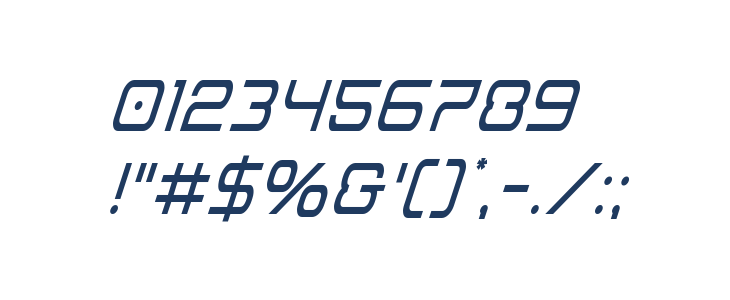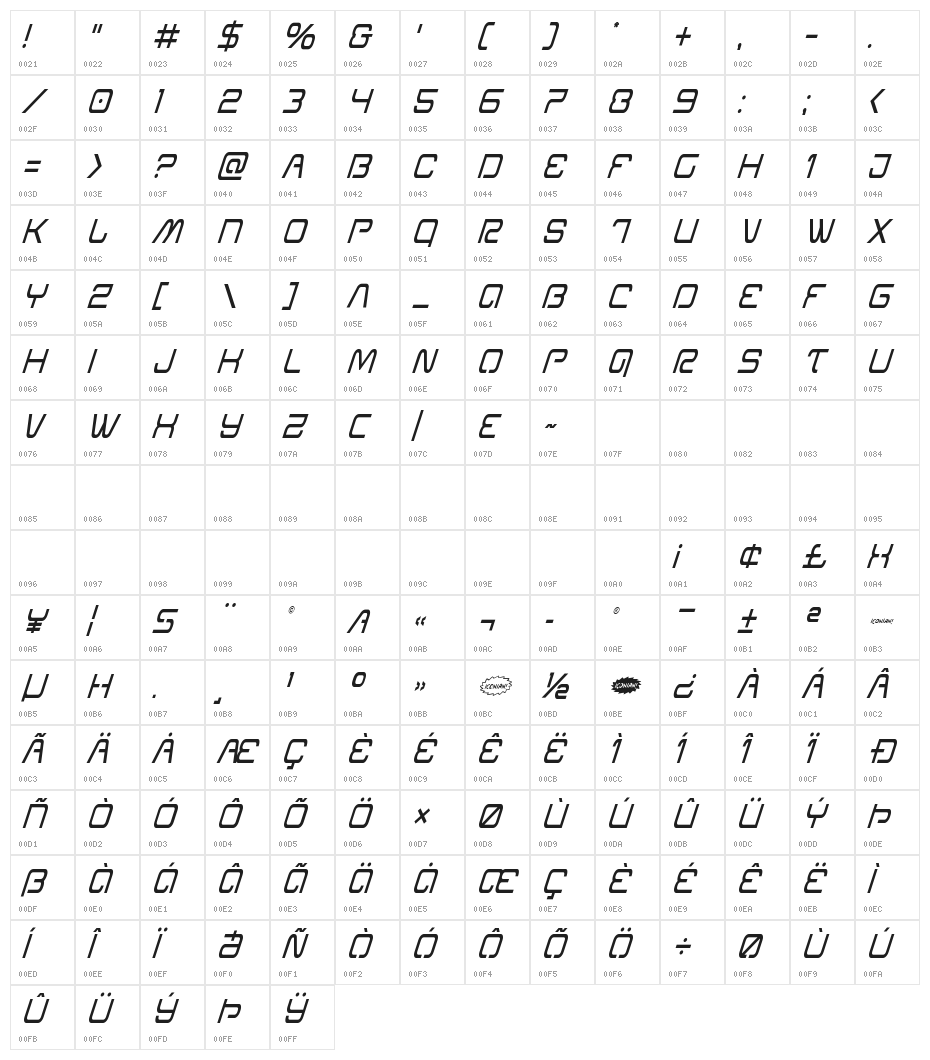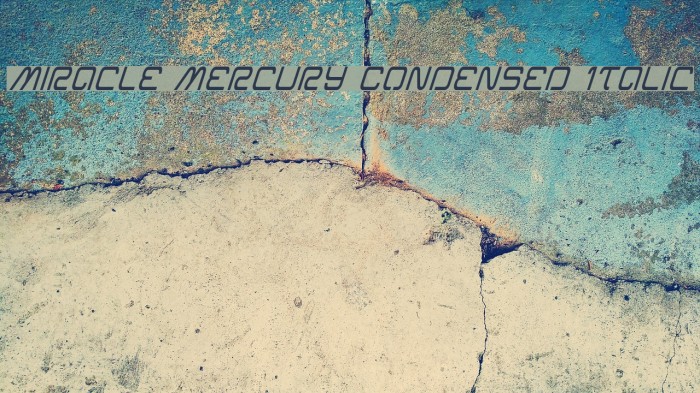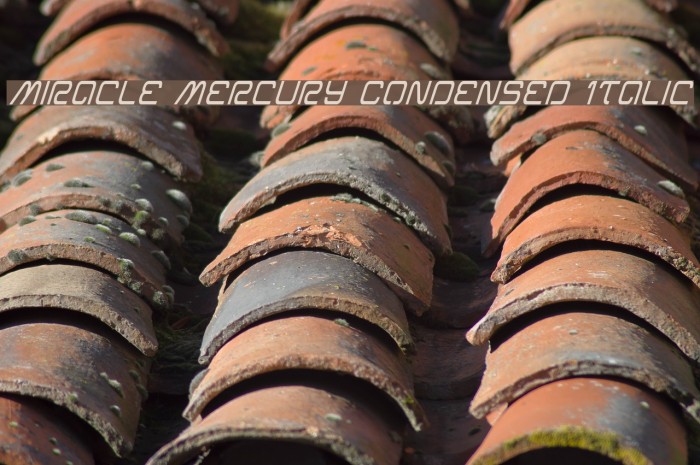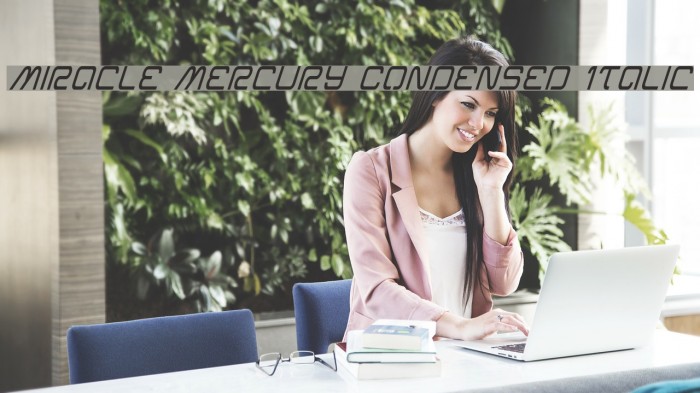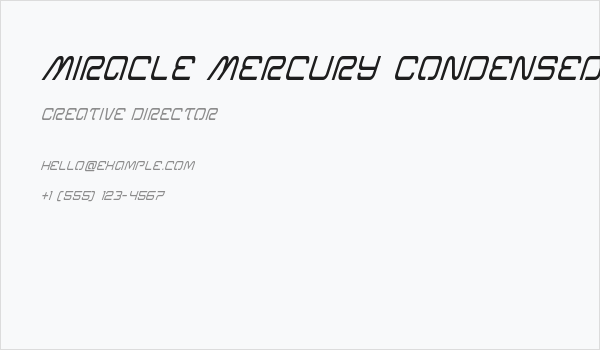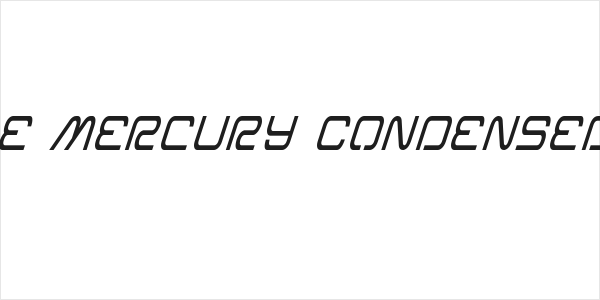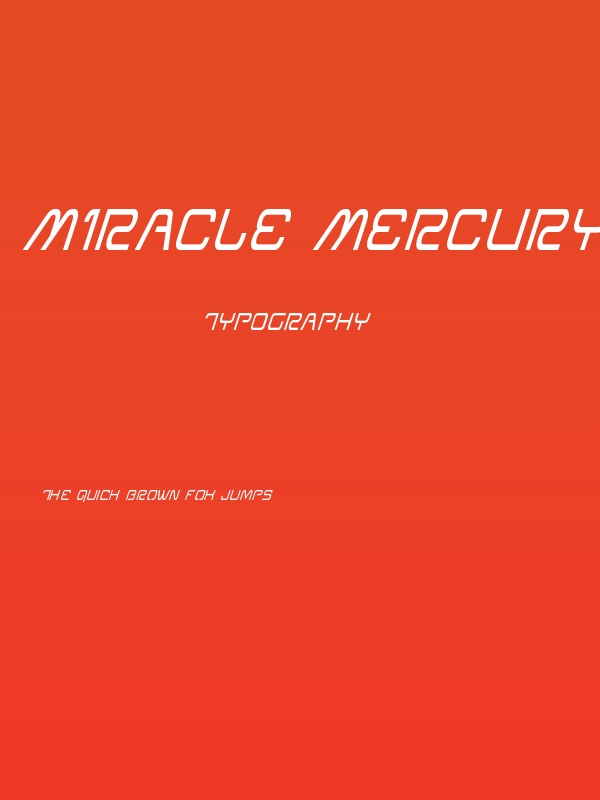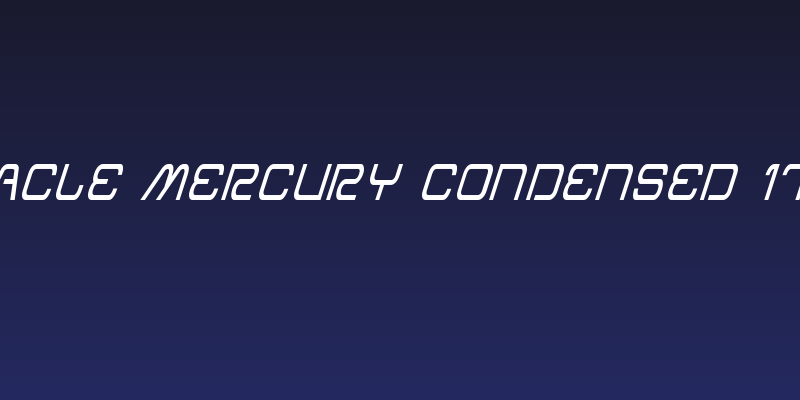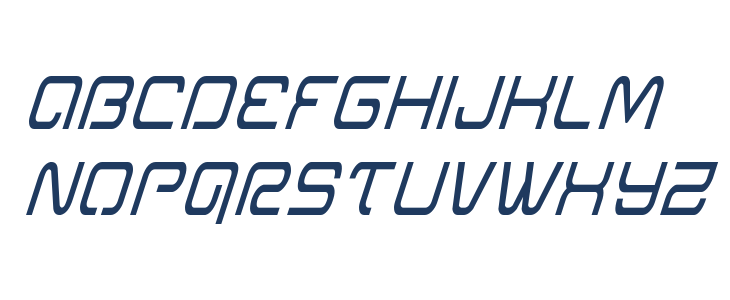
Miracle Mercury Condensed Italic Font
Miracle Mercury Condensed Italic Description
This font features a sleek, modern design with a condensed and italicized style. The characters are elongated and slightly slanted, giving a sense of motion and dynamism. The strokes are consistent in thickness, providing a uniform appearance across all characters. The design is clean and minimalistic, making it suitable for contemporary projects. The uppercase and lowercase letters maintain a cohesive look, while the numerals and special characters are crafted to match the overall aesthetic. This font is ideal for projects that require a modern and streamlined appearance.
| Proposed Projects | Ideal for branding, advertising, and editorial design projects that require a modern and dynamic look. |